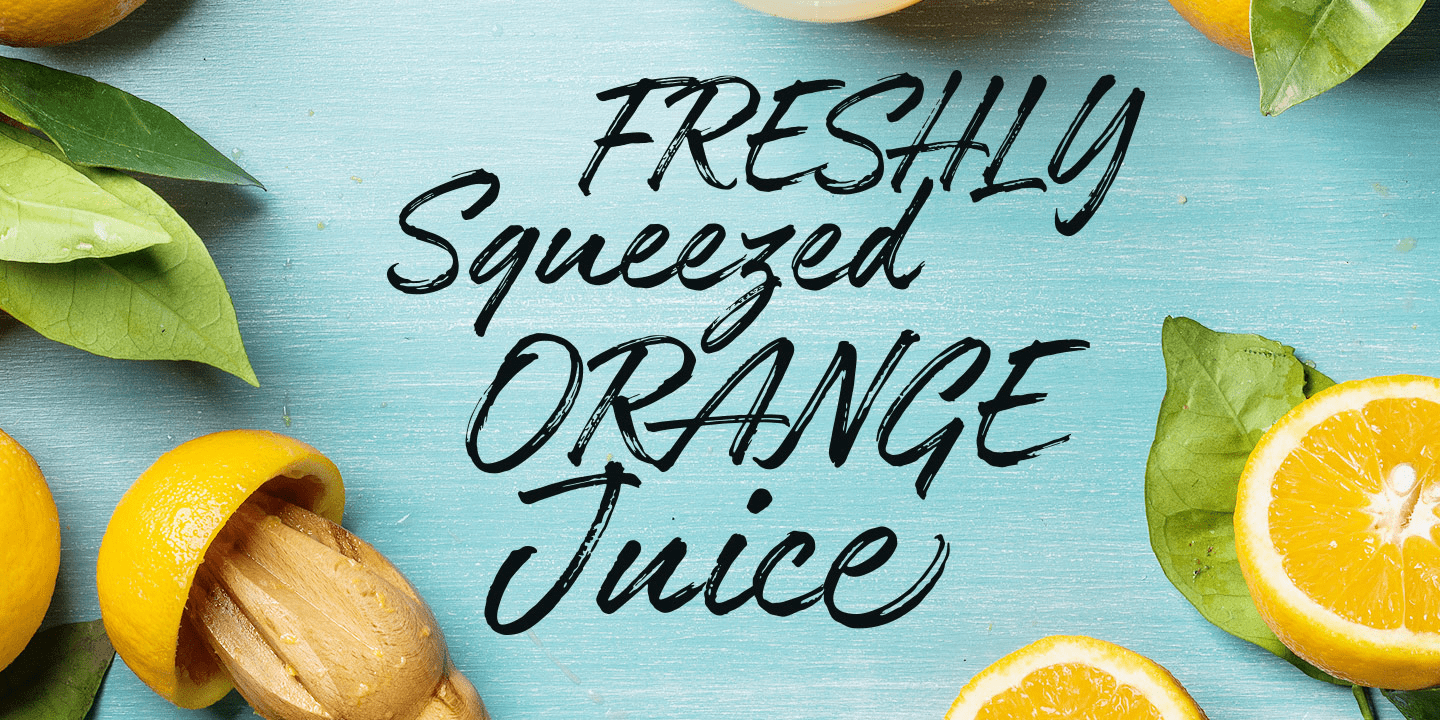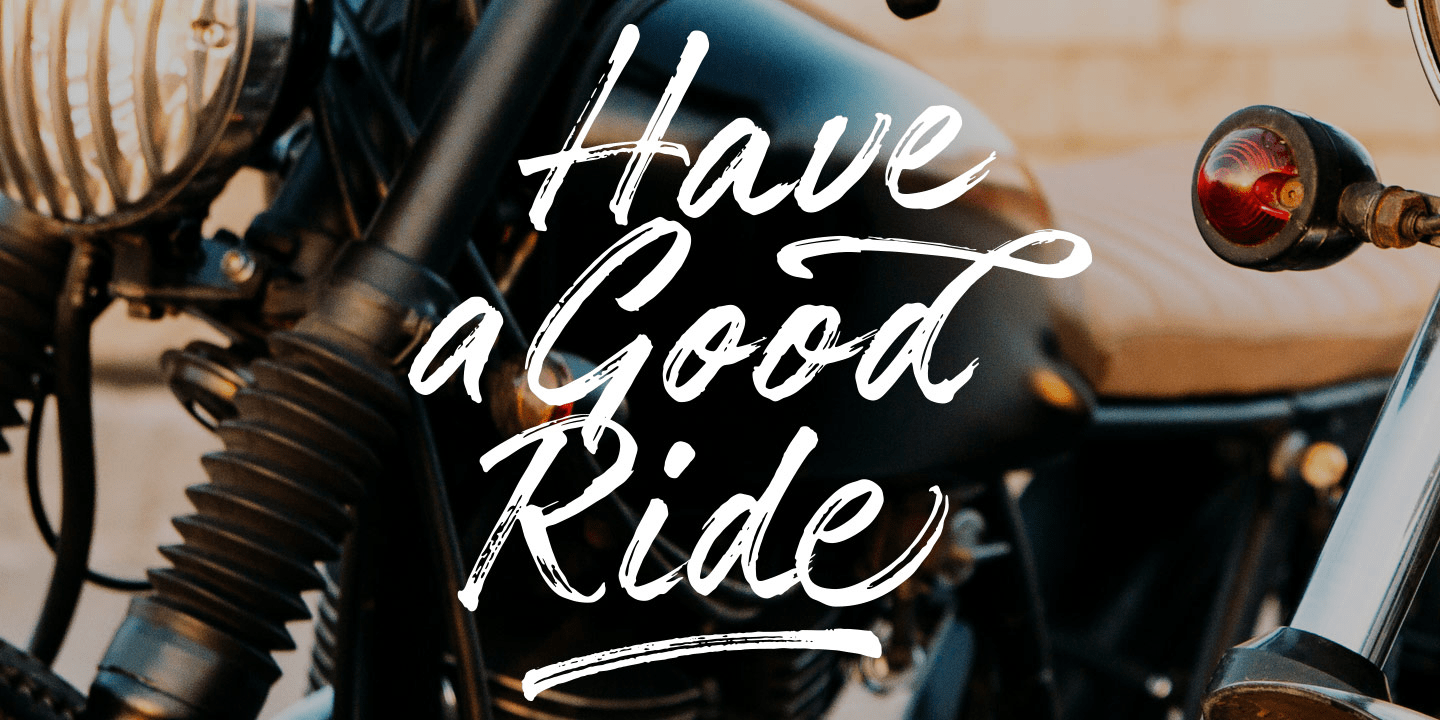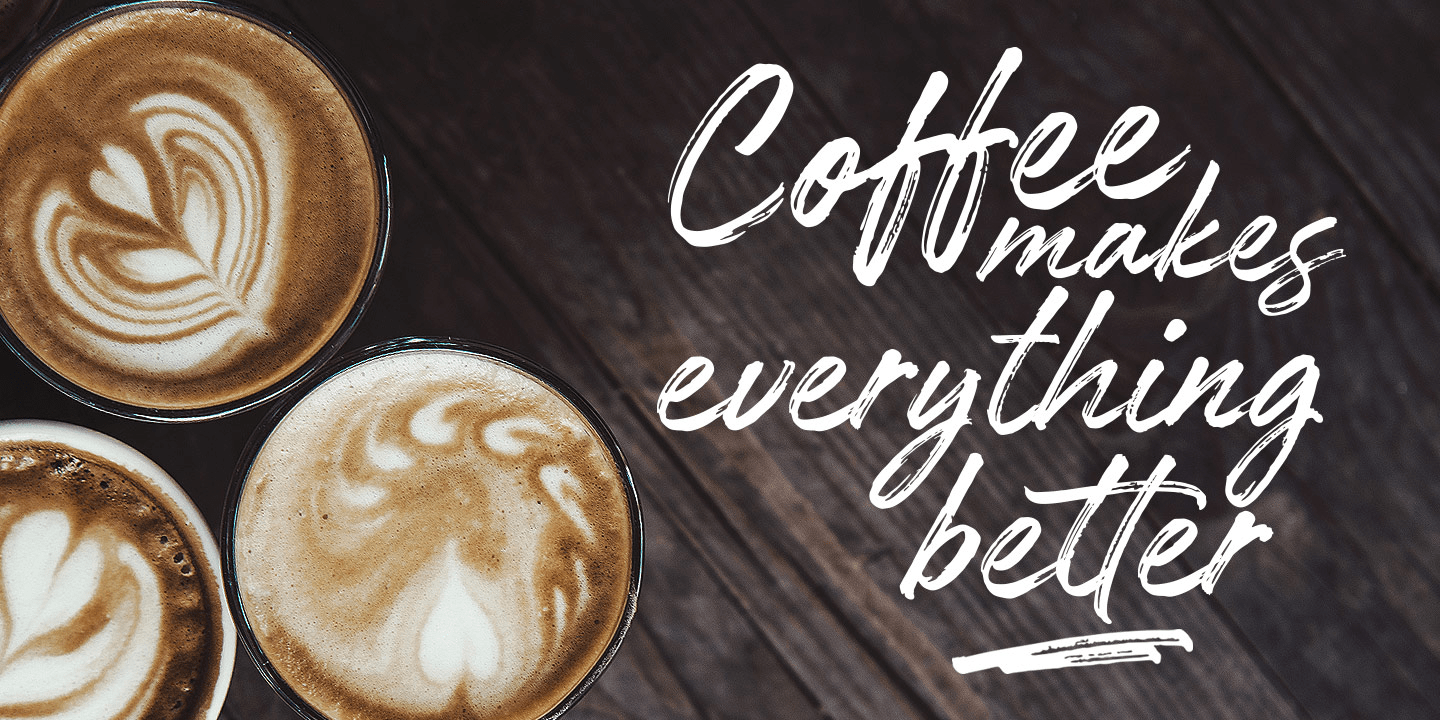
About Authenia
Authenia is a casually and quickly written brush script. Letters are made with brush pen on a paper. Then scanned and carefully drawn into vector format. That is why Authenia has organic, authentic and laid-back characteristics. Authenia has two sets…